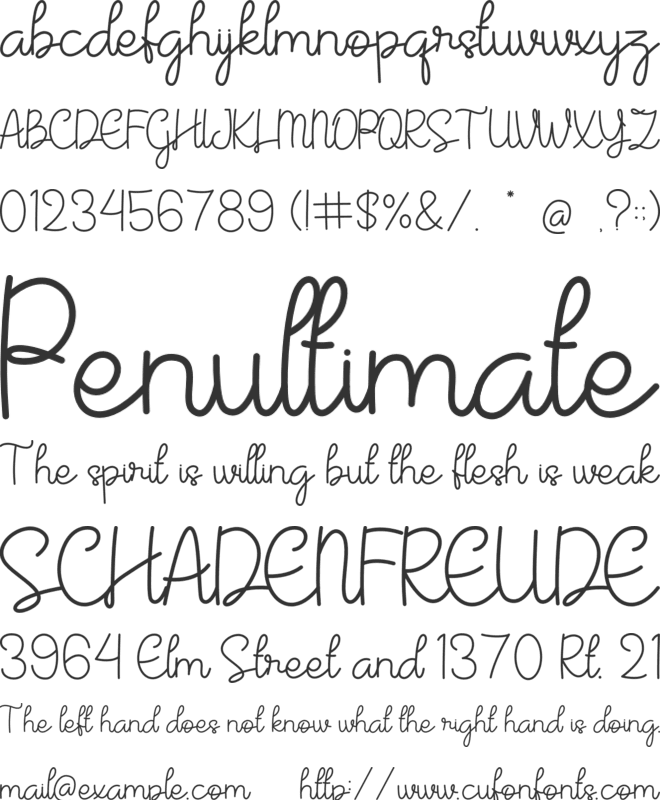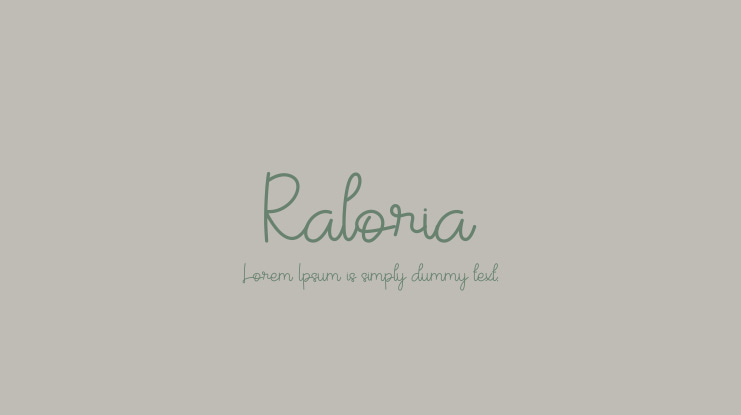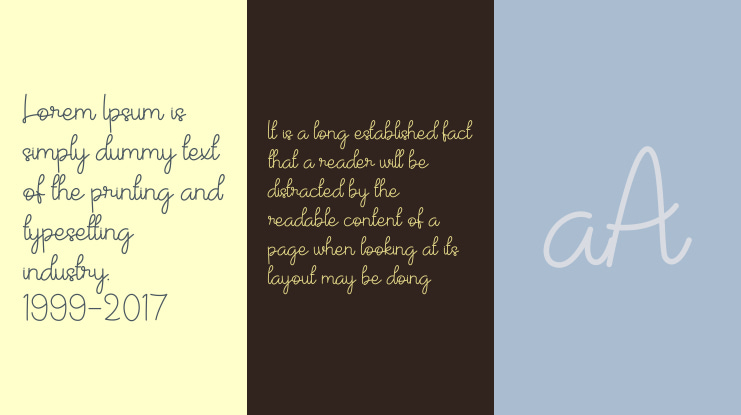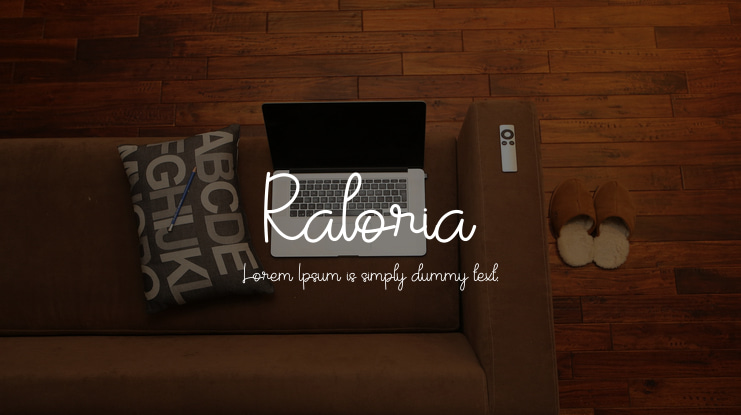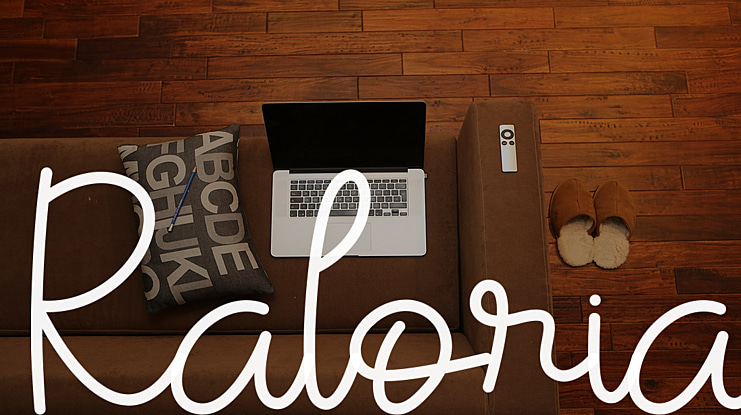
Raloria Font
Introducing Raloria - A Modern Monoline Script
Raloria results out of a stunning pairing of a brush pen and pencil that makes it look incredibly endearing and authentic. Use this gorgeous and unique handwritten font to bring any DIY project to life!